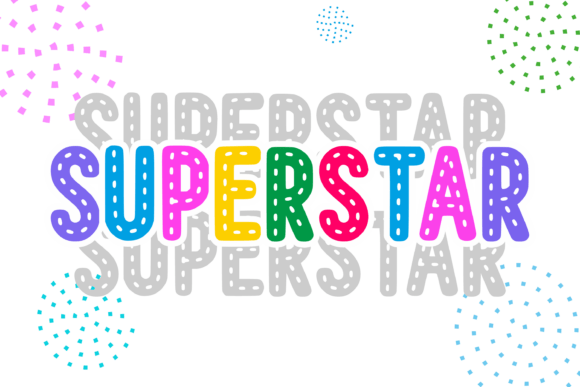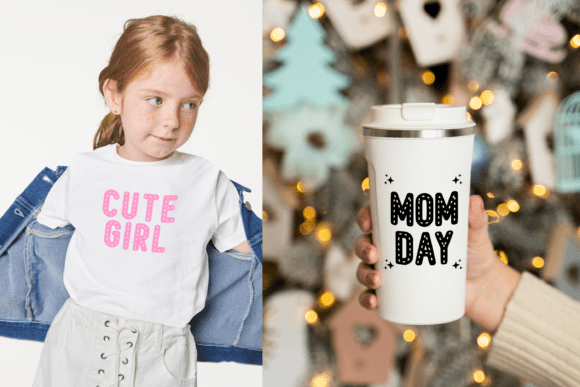
Glitter Day Font: Free Download Now
Unveiling β€œGlitter Day,” an enchanting Decorative font exuding liveliness and glimmer in every curve and stroke.
Each of its shimmering characters conveys a playful spirit and a touch of youthful spontaneity It’s an ideal partner for a wide range of creative projects, such as personalizing t-shirts, accessorizing your coffee mugs, or dazzling up glass wraps.
Glitter Day Font offers exceptional quality and versatility, making it a valuable addition to your design toolkit. Whether you’re creating for personal projects or commercial use, Glitter Day Font delivers professional results.